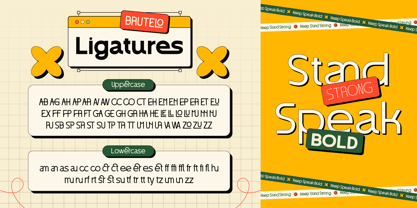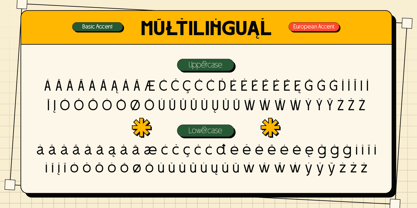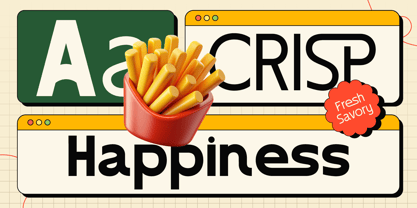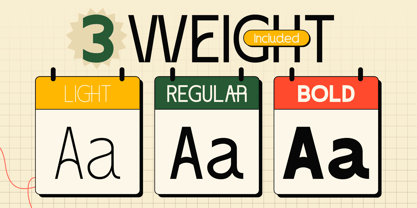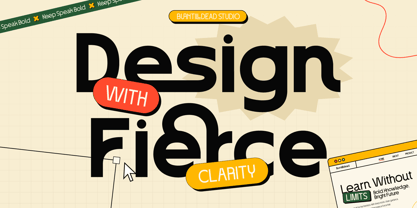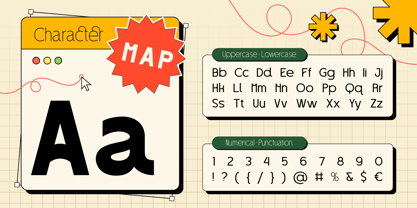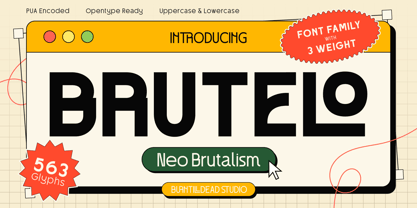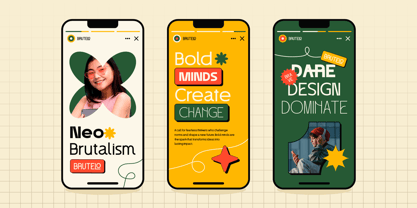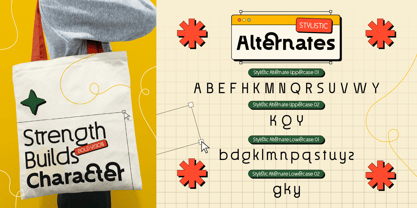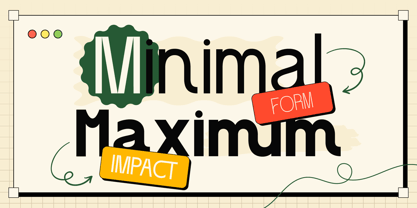
Brutelo
Die Schriftfamilie Brutelo wurde von Eric Kurniawan entworfen und von Burntilldead veröffentlicht. Brutelo enthält 3 Stile und Familienpaketoptionen.
Say hello to Brutelo, a bold and playful take on Neo Brutalism! This font brings strong geometry, quirky shapes, and confident energy all in one package. Whether you’re designing a poster, logo, or social media post, Brutelo knows how to grab attention without even trying. It’s clean but not boring, structured but full of personality — just like your favorite creative chaos. With 3 weights (Light, Regular, and Bold), you can switch the mood from chill to loud in seconds. So if you’re the type who loves standing out with style and confidence, Brutelo is your new design bestie! Features: A - Z set (Uppercase & Lowercase), Number, Alternates, Ligatures, Punctuation and Multilingual